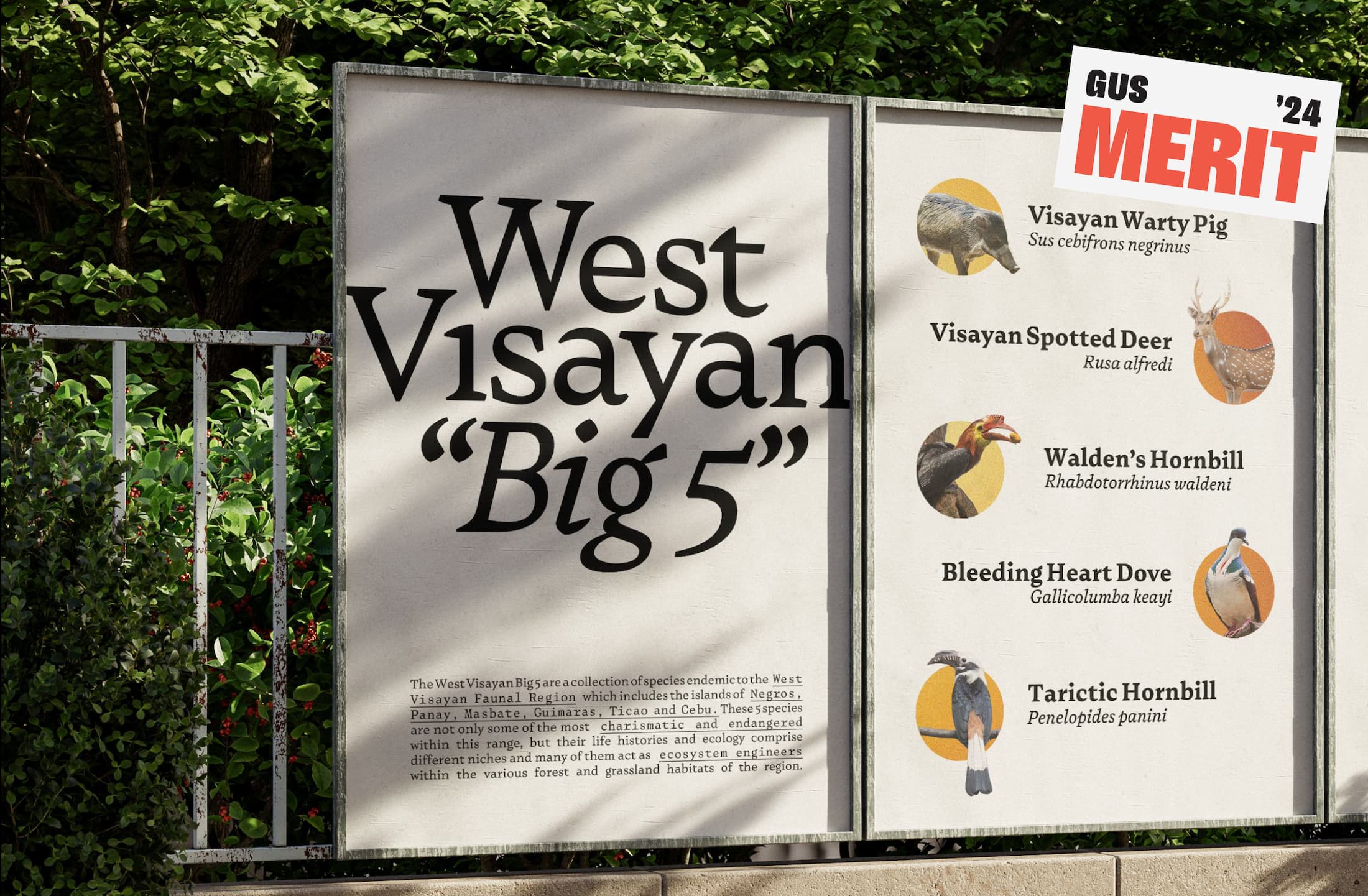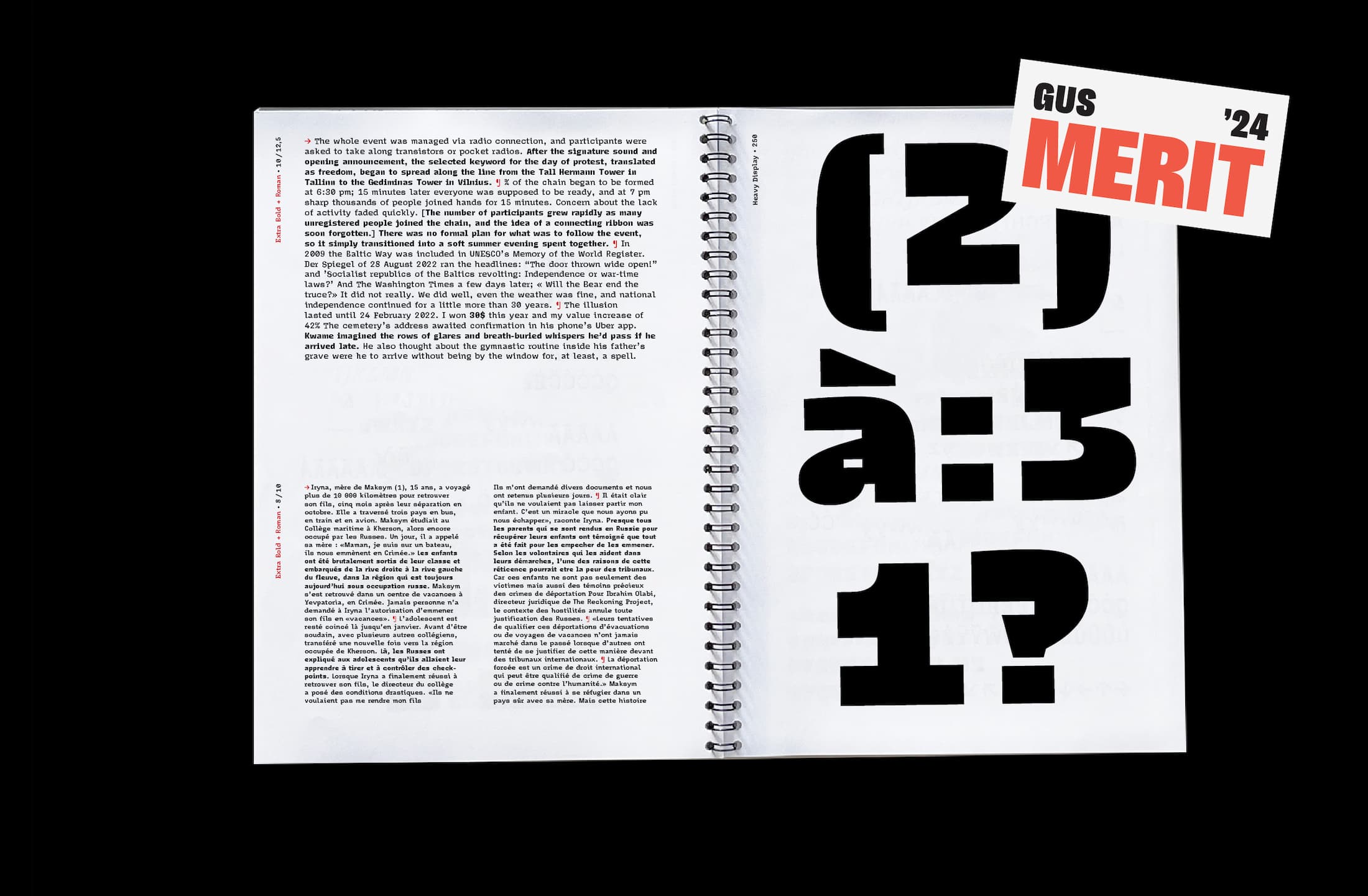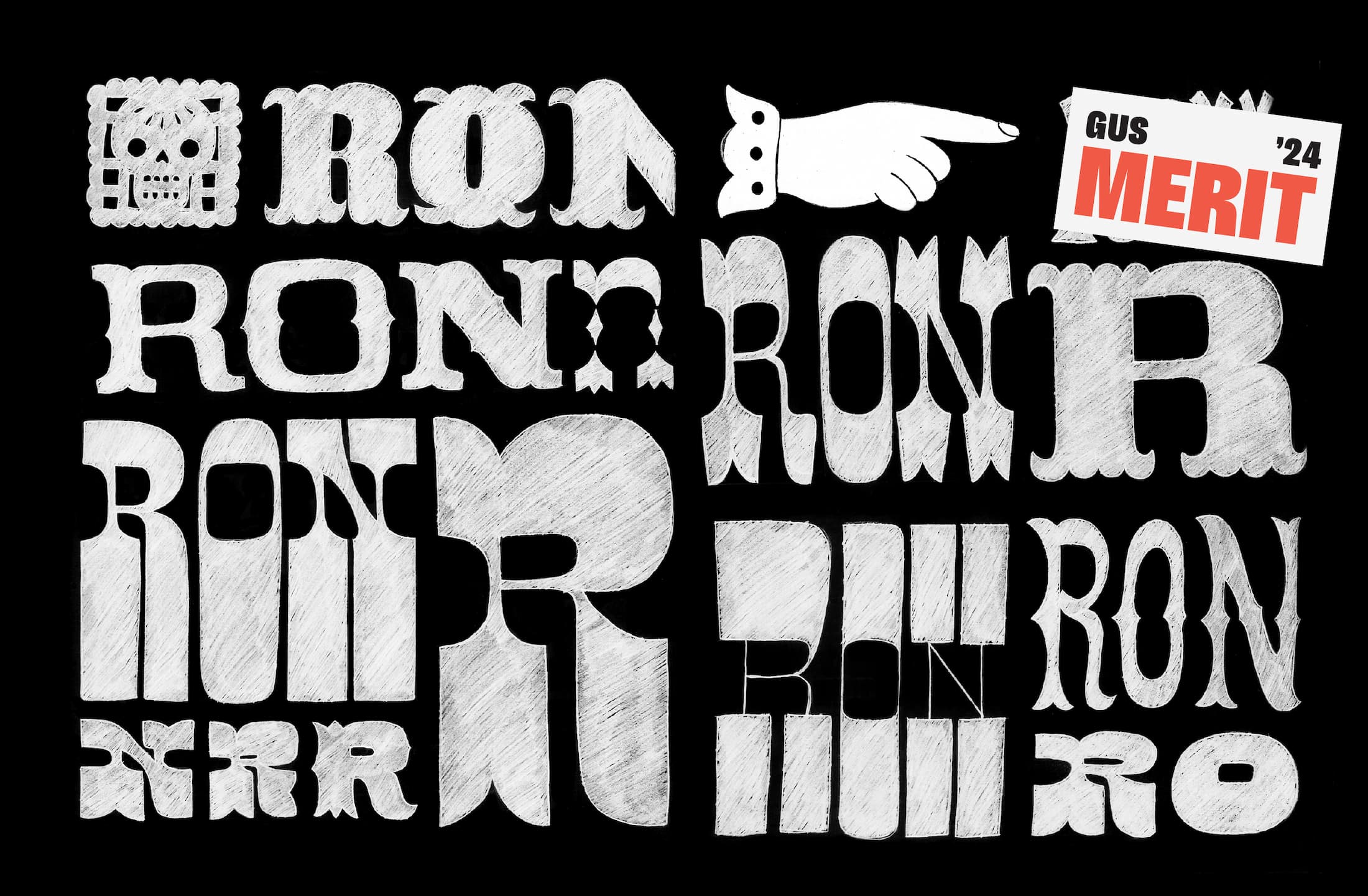
2024 Gerard Unger Scholarship results
We are happy to announce the winner of the Gerard Unger Scholarship 2024: the Dargon font family by Anne-Dauphine Borione, developed while studying at TypeMedia (KABK), under Erik van Blokland’s tutoring.
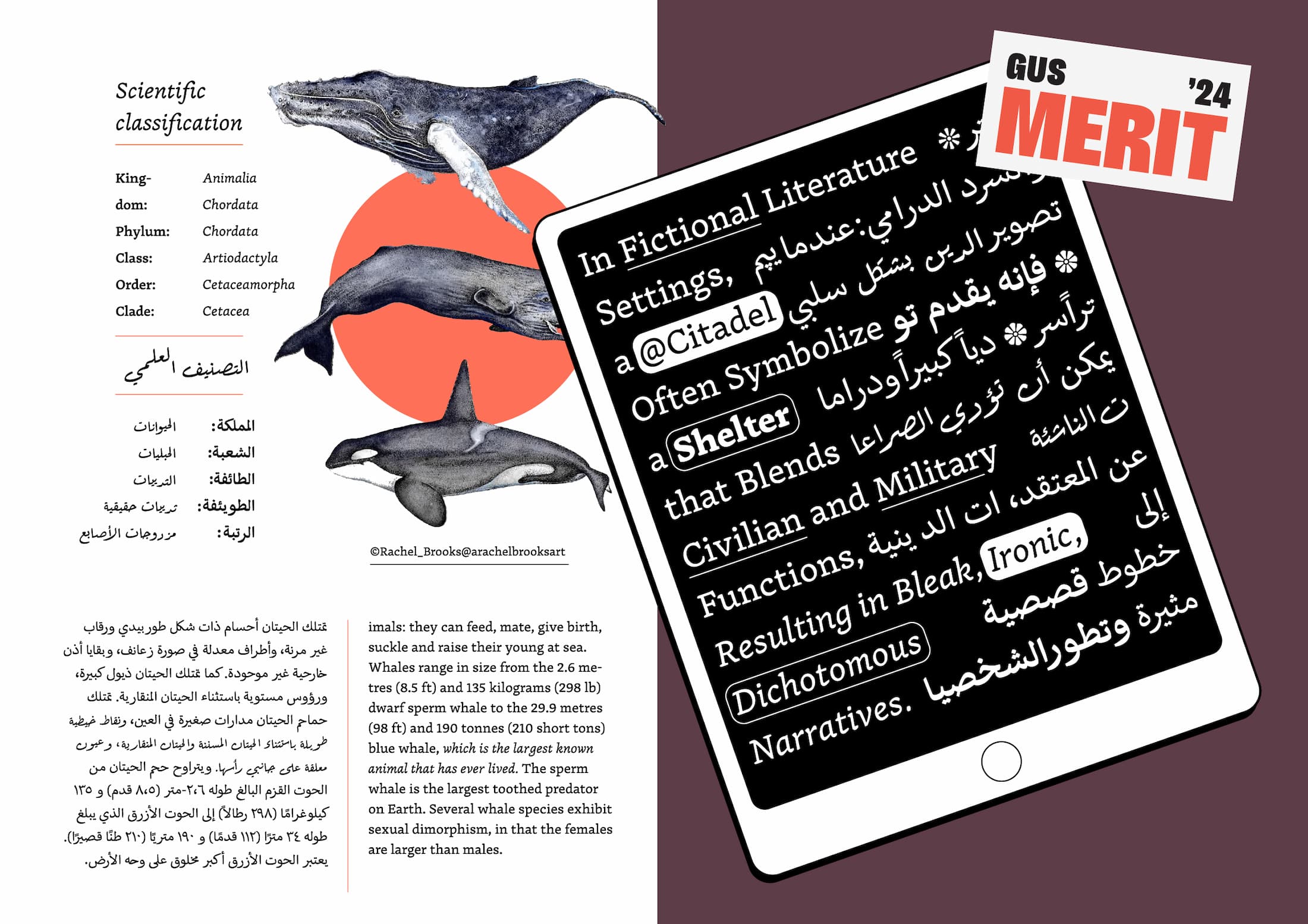Winner: Dargon by Anne-Dauphine Borione, developed at TypeMedia, at the Royal Academy of Art, The Hague (KABK). Teachers: Erik van Blokland.
Anne-Dauphine Borione
2024 winner: Dargon by Anne-Dauphine Borione
Congratulations to this year’s scholarship winner, Anne-Dauphine Borione and her Dargon font family! “We particularly relish Dargon’s fantasy theme,” said Veronika, “and its fresh and contemporary take on an uncial style. The family is idiosyncratic and yet functional, combined with a warm and approachable serif.”
The rest of the TypeTogether team had this to say about Dargon: “This project’s purpose is rooted in fantasy, and it fulfills this goal perfectly. With its many weights and additional uncial style, Dargon will apply to video games, film titles, album covers, branding, apps, trading cards, and more all across the board(games).”
Anne-Dauphine Borione & Dargon (WIP)
Anne-Dauphine Borione, aka Daytona Mess online, is a type designer from Paris, France. She is mostly known for her experimental and display approach to type, influenced by her bachelor in Fine Arts from Central Saint Martins, London, 2016. In 2024 she graduated from TypeMedia in The Hague, The Netherlands, where she learned how to draw more conventional typefaces and gained traditional typographic skills which are now feeding back into her display practice.
Anne-Dauphine intends to take her Dargon project past its current state by expanding its styles and weights, and filling in the character set for increased utility around the world.
Winner: Dargon by Anne-Dauphine Borione.
With Dargon, Anne-Dauphine Borione has become the scholarship’s tenth recipient: Roxane Gataud (Bely), Juan Bruce (Noort), Quentin Schmerber (Temeraire), Bogidar Mascareñas (Laima), Florian Fecher (Lektorat), Anya Danilova (Rezak), Nina Faulhaber (Aeroplan), Emma Marichal (Ploquine), and Patrycja Walczak (upcoming Poltik). Each of the Gerard Unger Scholarship published typefaces have won awards, including the TDC Certificate of Excellence, D&AD award, ISTD awards, and ED-Awards, among others.
Winner: Dargon by Anne-Dauphine Borione.
This year we received 63 submissions from 62 designers living all over the world — representing 36 schools in 25 countries. Forty-three of the families were single script and 20 were multiscript, showcasing ten different scripts.
More than just the winner, we had some amazing submissions that are worthy of significant recognition and a little something extra from the team. The six promising typeface projects receiving TypeTogether’s merit award are (alphabetically): Citadel by Guocheng Xin, Dilinh by Đông-Trúc Nguyễn, Dulungan by Jad Maza, Lezarde by Lucas Voilquin, Malinali by Sandra Morales, and Tarisel by Martin Brendecke.
Citadel
Guocheng Xin (Shin)
Xin is a typeface designer originally from China who is currently studying typeface design in MATD at the University of Reading. He previously studied graphic design at ArtCenter College of Design, California. During his prior degree courses with Greg Lindy, he developed a palpable curiosity and passion for typeface design. After working as a typeface designer with Latin and Chinese scripts, he has pursued a more global typographical approach and taken on challenges involved with another script in his recent programme at Reading.
Merit: Citadel by Guocheng Xin, developed at MATD, University of Reading. Teachers: Gerry Leonidas, and Borna Izadpanah.
Citadel by Guocheng Xin.
Dilinh
Đông-Trúc Nguyễn
Đông-Trúc is a recent graduate from EsadType 22–24 in Amiens, France. Growing up in a small town in the Central Highlands of Vietnam, which was designated as a New Economic Zone in the 1970s to relocate people to less populated areas, she was exposed to different accents and cultures from the North to the South of Vietnam. This nurtured her sensitivity and curiosity toward the Vietnamese language and became the driving force behind her graduation project at EsadType: creating a Vietnamese typeface for editorial use based on linguistic research. She considers type design a medium that reflects her interest in the beauty of language, literature, and culture.
Merit: Dilinh by Đông-Trúc Nguyễn, developed at EsadType, Amiens, France. Teachers: Sébastien Morlighem.
Dilinh by Đông-Trúc Nguyễn.
Dulungan
Jad Maza
Jad is a Filipino designer hailing from Iloilo, Philippines. Sparked by a passion project, his type design practice focuses on developing Latin and Baybayin fonts and explores what type designs could look like within the Filipino context. His fonts have been released on international platforms such as Blaze Type and Future Fonts. In 2022, he completed the year-long Type West online postgraduate certificate program in type design by the Letterform Archive, San Francisco. Jad is currently designing brands at And A Half design studio based in Pasig City, Philippines.